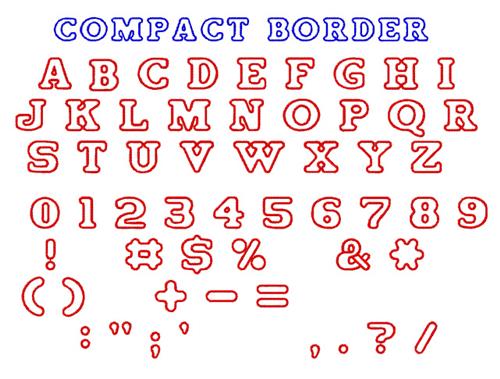
Internet Stitch is happy to present Compact Border Embroidery Font - Bold Block Outline Lettering - Home Format - PES, DST & 10 formats machine embroidery font which has Bold block style machine embroidery font, ideal for branding on uniforms or banners. The outline design stands out beautifully on canvas or cotton surfaces. Available in PES, DST, and 10 other formats. included. If you would like to view more embroidery fonts and alphabets please search our embroidery fonts page.